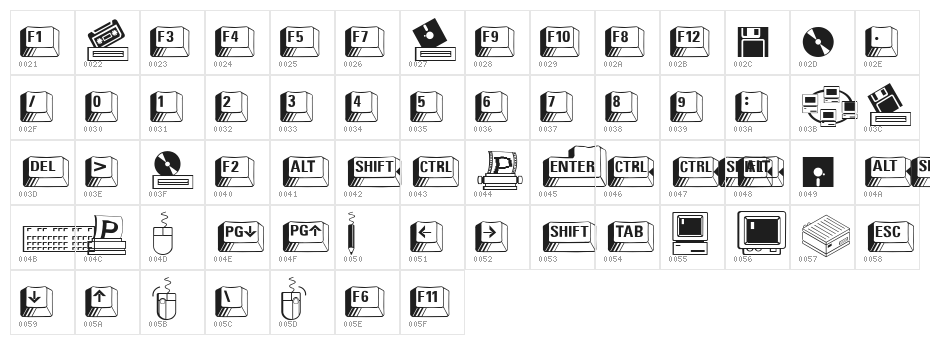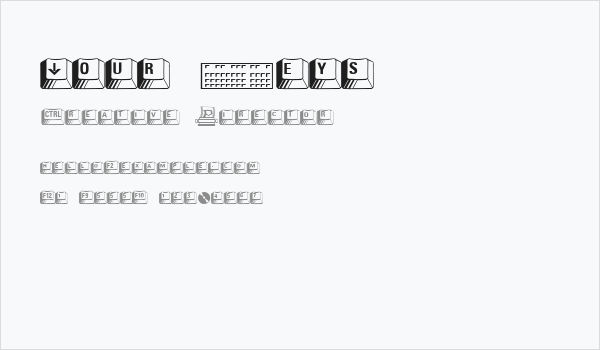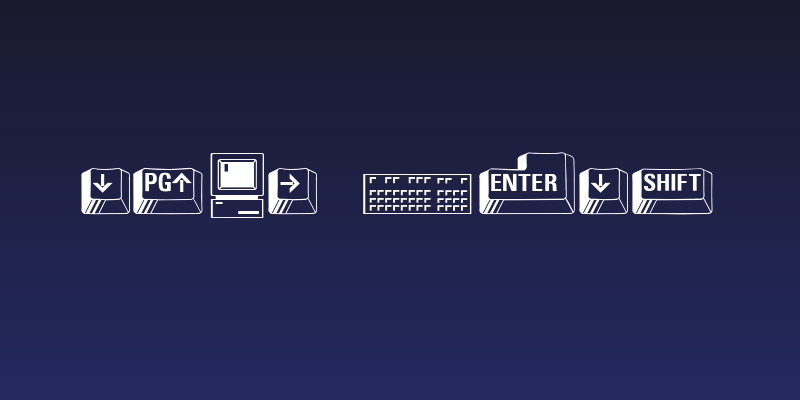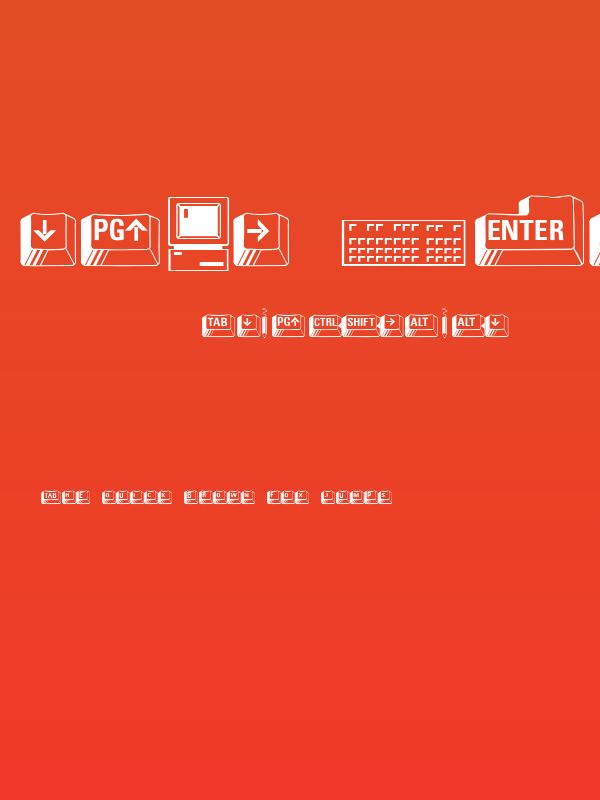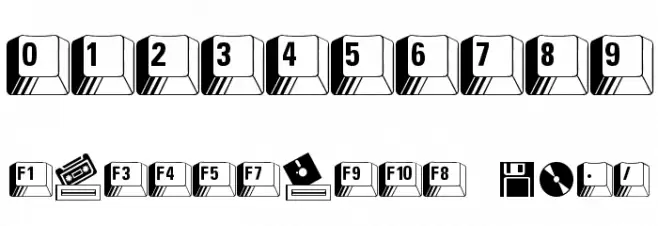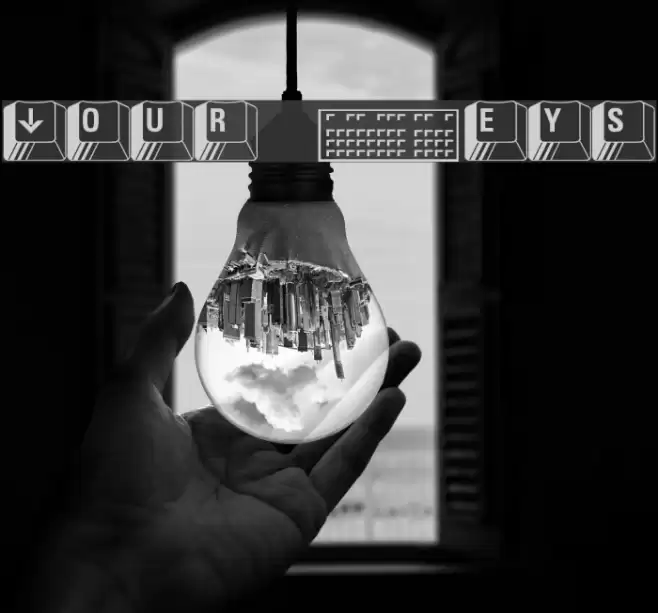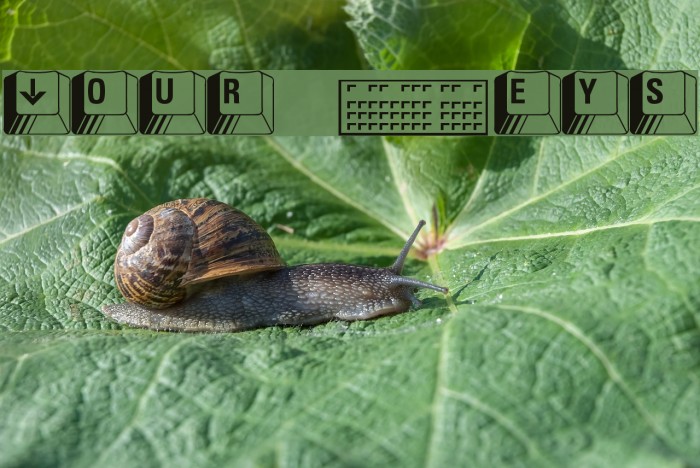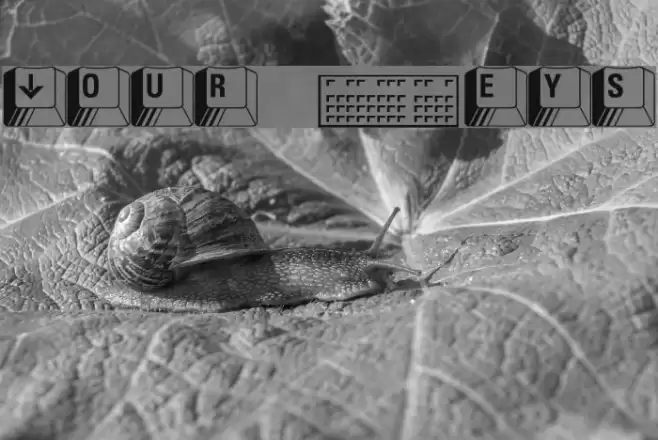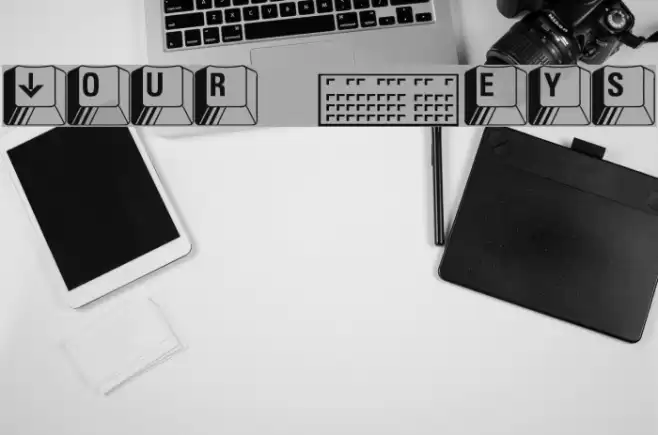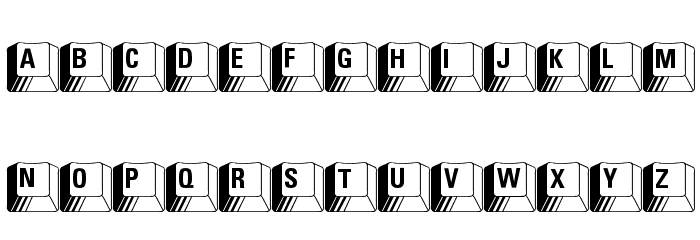
Your Keys Font
| Stil general | Decorative, Retro |
| Caz de utilizare | Logos, Posters, Digital Art |
| Proiecte propuse | Ideal for tech-themed designs, retro gaming graphics, educational materials about computers, or any project needing a playful, nostalgic touch. |